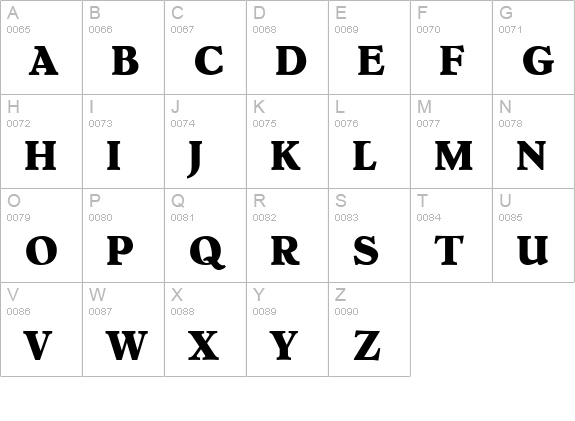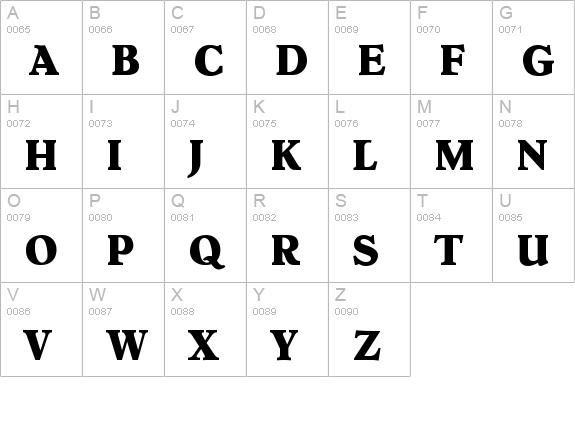
Negotiat Display SSi Font Details
Negotiat Display SSi font is a stylish and elegant typeface that exudes sophistication and modernity. With its sleek and clean lines, this font is perfect for adding a touch of class to any design project. The sharp edges and bold strokes of Negotiat Display SSi make it ideal for headlines, branding, and high-impact graphics. What sets Negotiat Display SSi font apart is that it is available for free download at FontsMarket.com. This means that you can easily access this high-quality font without any cost, making it a valuable asset for designers and creatives looking to elevate their work without breaking the bank. Whether you're working on a website, poster, logo, or any other design project, Negotiat Display SSi font will help you make a bold statement and leave a lasting impression. Download this font for free today and take your designs to the next level!